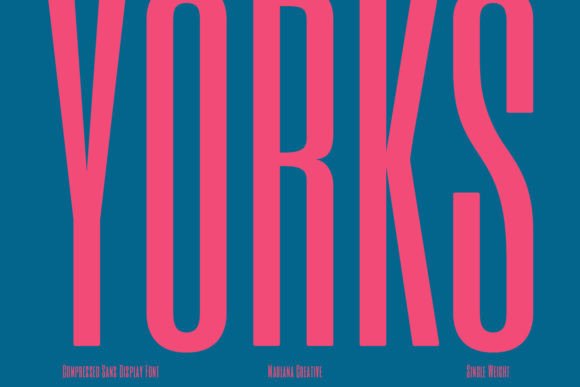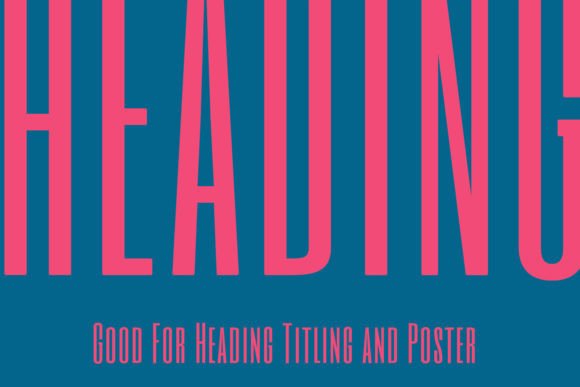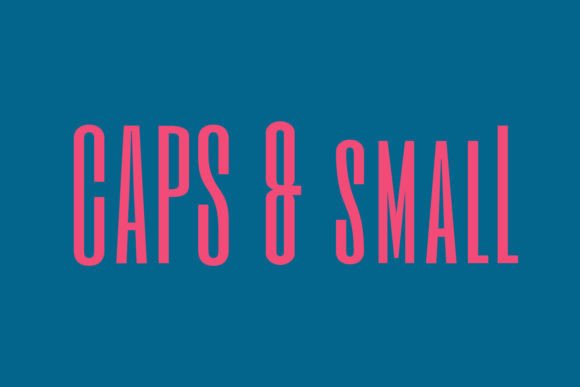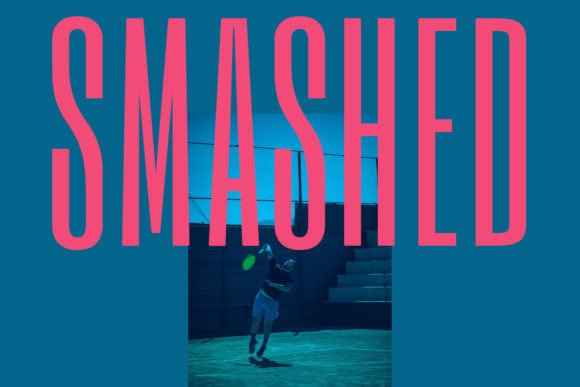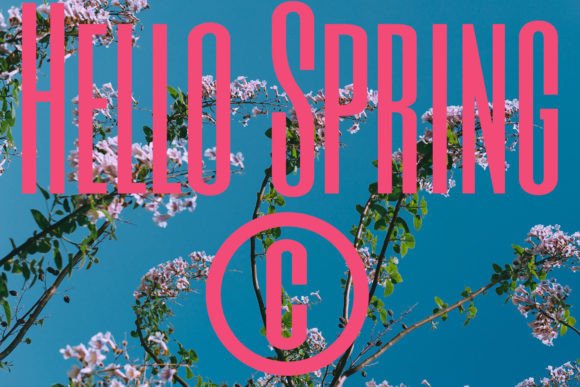
Yorks Font
Yorks is a condensed and tall display font, perfect for projects that require a bold and impactful statement. Its elongated letterforms and narrow proportions convey a sense of height and grandeur, while its clean lines and legibility ensure readability at any size. Ideal for headlines, signage, and other display applications, this font is sure to make a lasting impression.